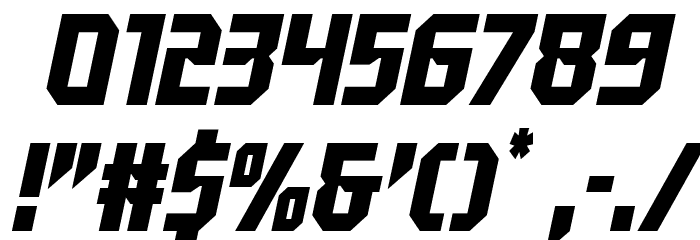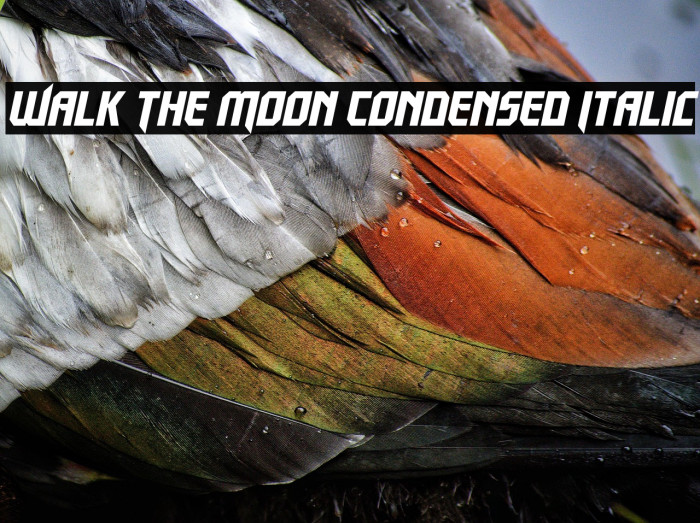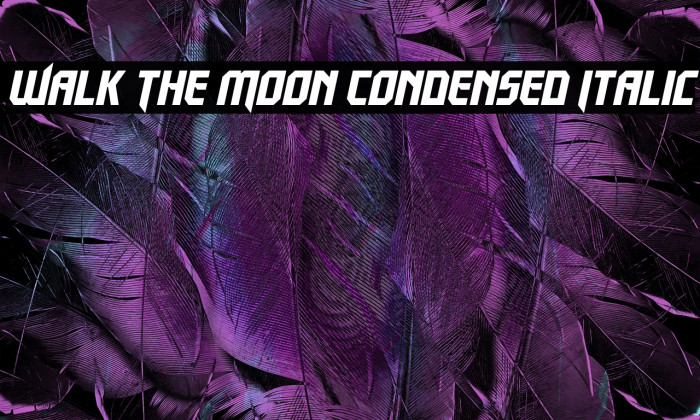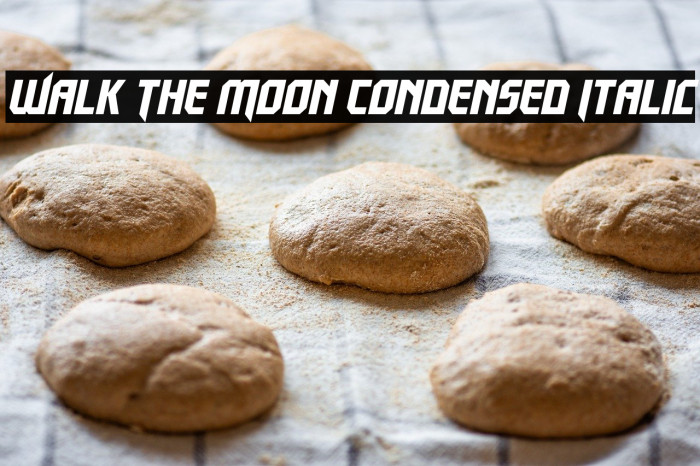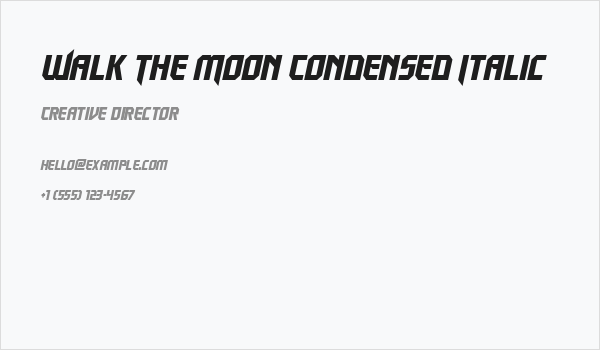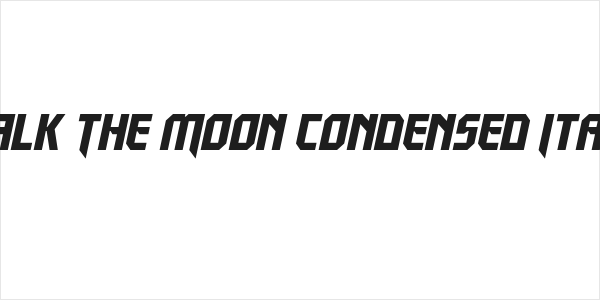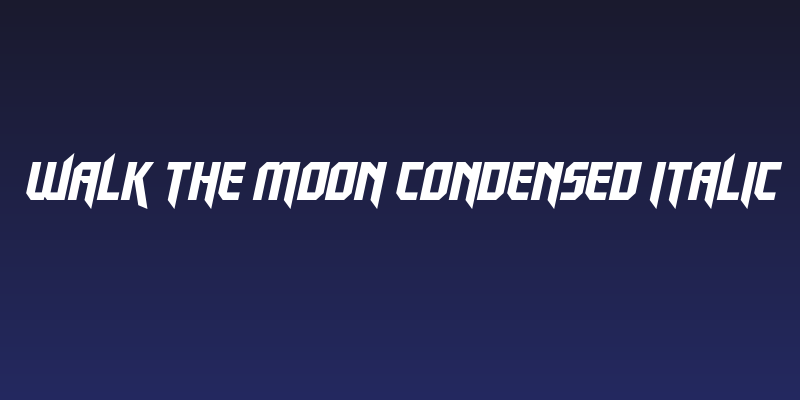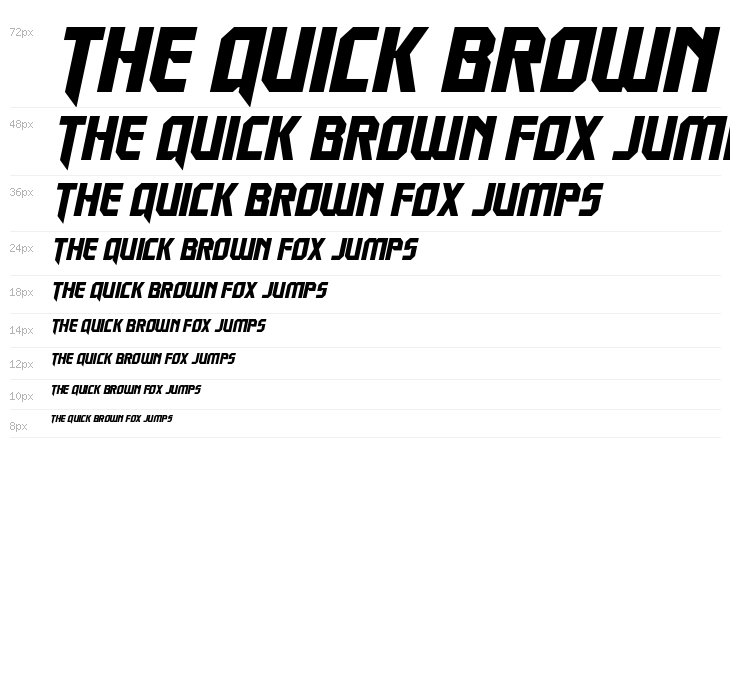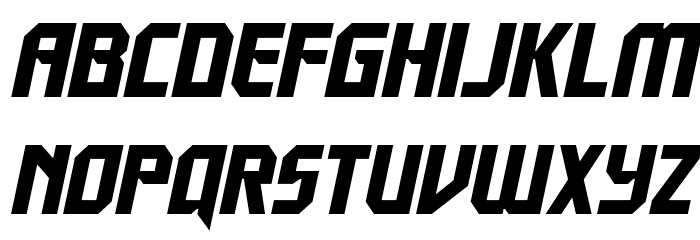
Walk The Moon Condensed Italic Font
Walk The Moon Condensed Italic Description
This font features a bold and dynamic style with a condensed and italicized form. The characters are sharply angled, giving a sense of movement and energy. The uppercase and lowercase letters maintain a consistent geometric structure, with thick strokes that enhance readability. The numbers and special characters follow the same angular and bold design, ensuring uniformity across all glyphs. Its unique style makes it stand out, suitable for projects that require a modern and edgy look.
| Proposed Projects | Ideal for sports branding, music album covers, posters, and dynamic logo designs. |